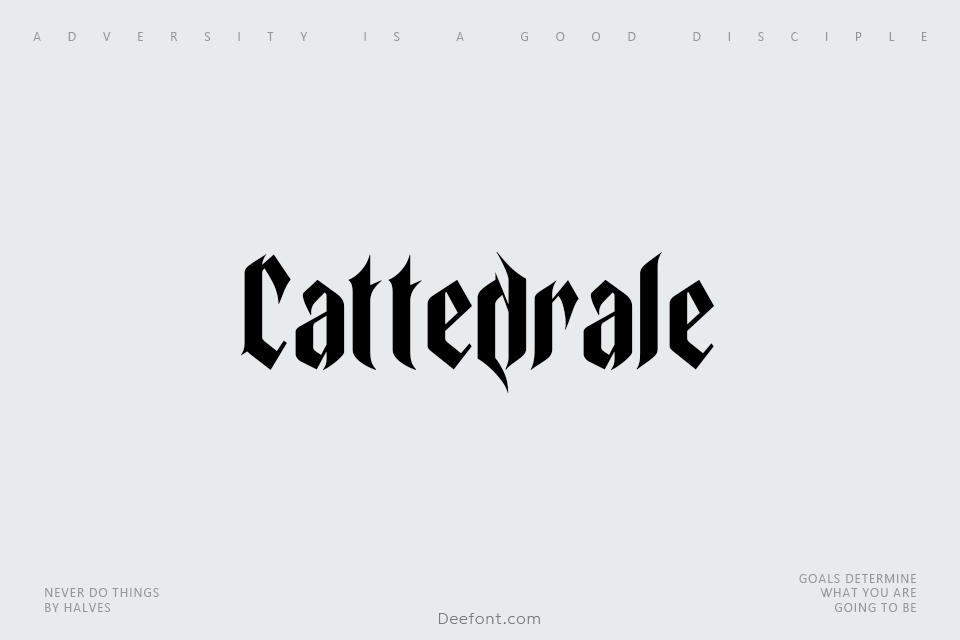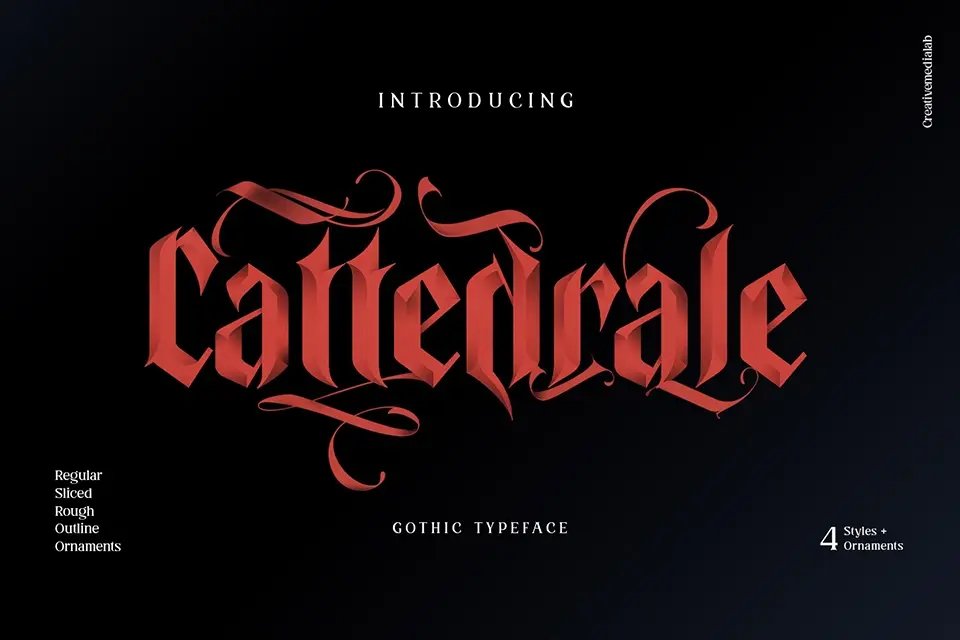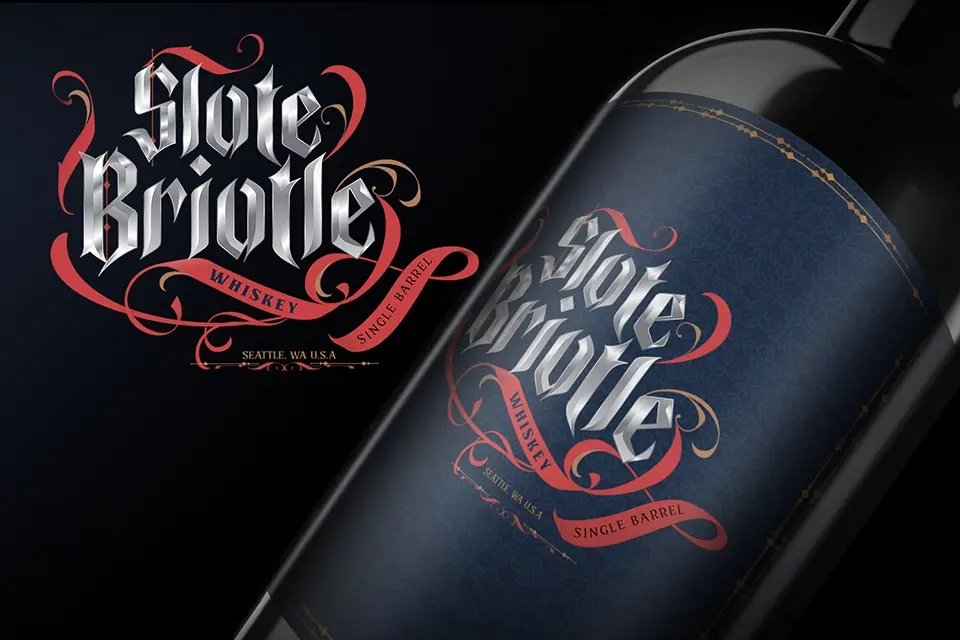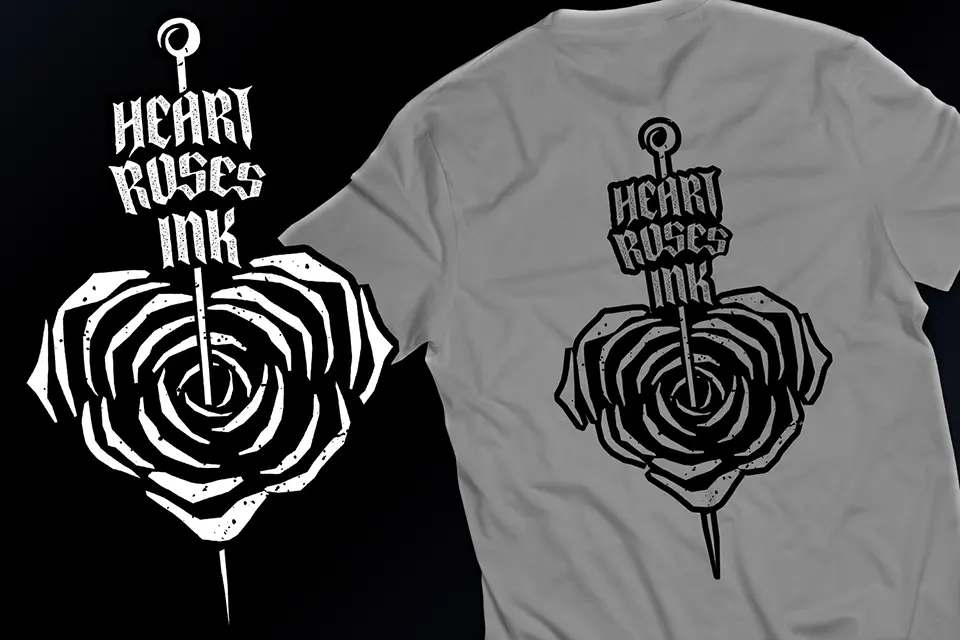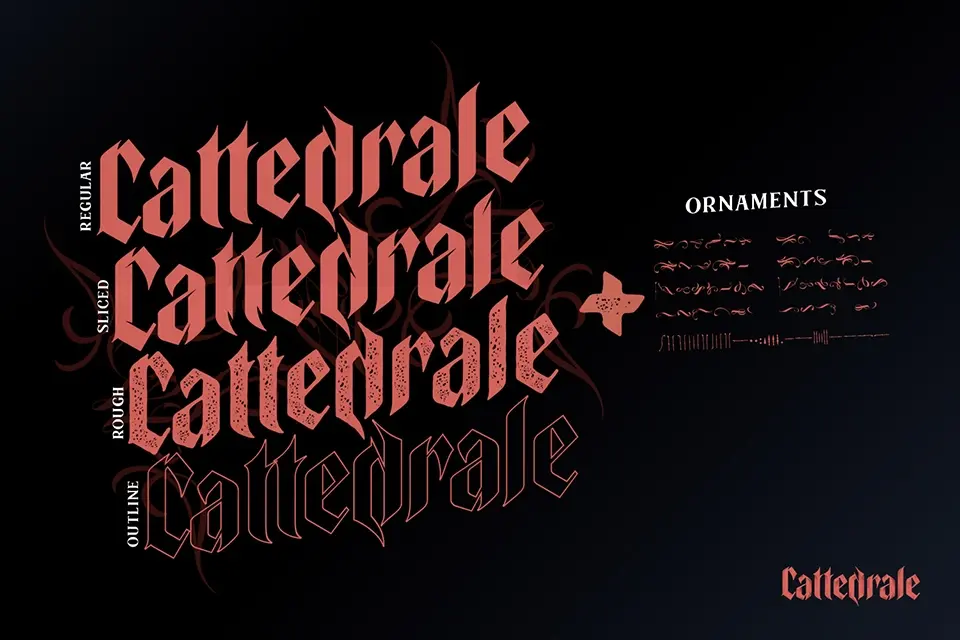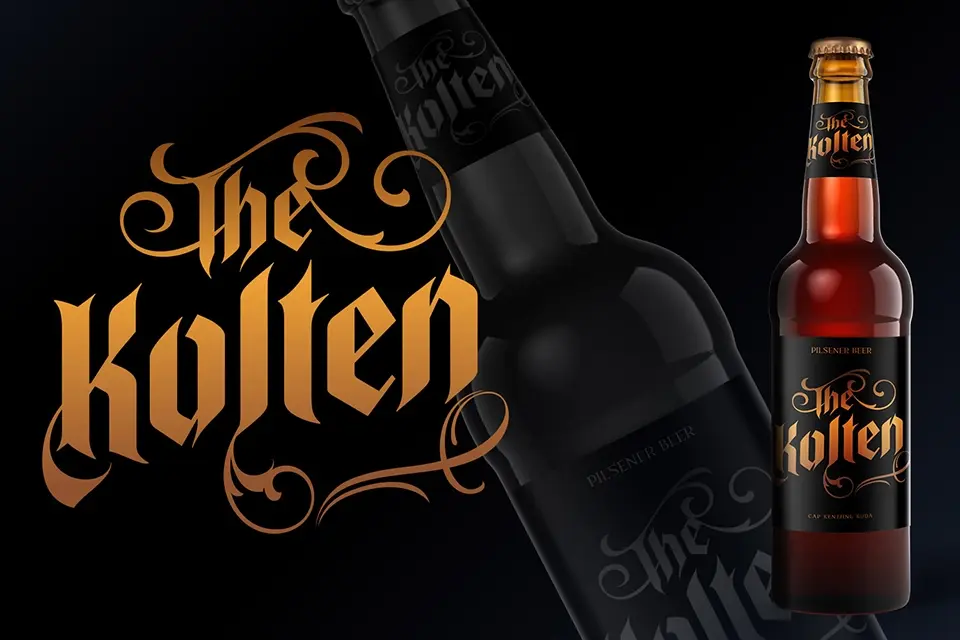
Cattedrale Font
Cattedrale is a distinctive Gothic blackletter font designed for impactful visual communication. Featuring sharp angular lines and heavy bold appearance, this typeface excels in creating dramatic effects for posters, branding, and editorial projects. With support for multiple languages and available in four distinctive styles including regular, rough, sliced, and outlined variations, Cattedrale combines medieval Gothic aesthetics with modern design sensibilities. Perfect for tattoos, clothing labels, packaging, and any project requiring Gothic-themed visual impact